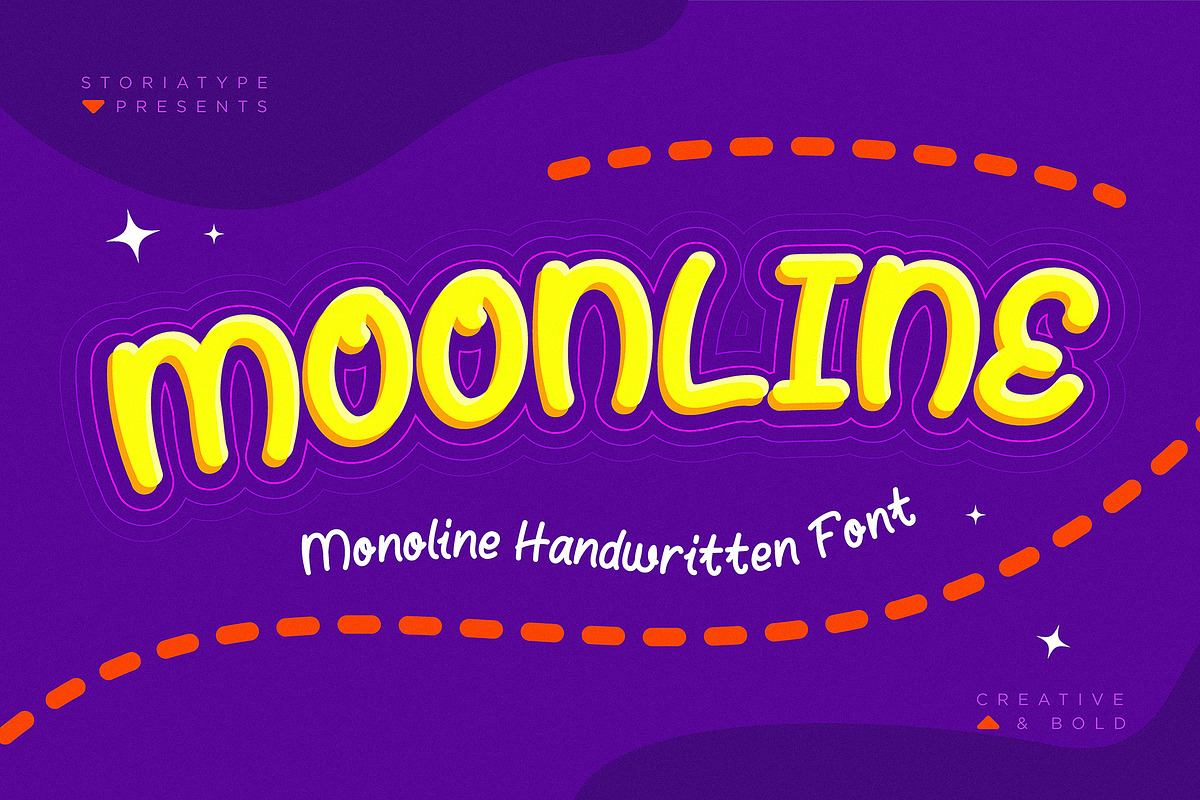
Moonline - Monoline Handwritten Font Free Download
Moonline – Monoline Handwritten Font Free Download is a sleek and elegant script typeface with a simple yet refined monoline style. Perfect for branding, social media graphics, invitations, product packaging, and handwritten-style logos, Moonline adds a clean, personal touch to your designs.
This font's smooth, continuous lines and balanced structure make it both readable and stylish, ideal for projects that need a modern and minimalist feel. Whether you're designing a boutique logo, crafting a modern wedding invitation, or enhancing your creative content, Moonline offers versatility and beauty.